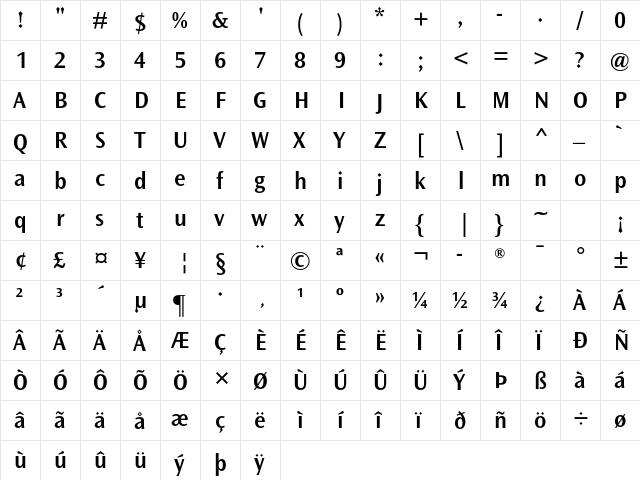
Ocean Sans Std Semibold
| Designer | Chong Wah |
Design Context for Ocean Sans Std Typeface
Ocean Sans Std is a composed and adaptable typeface that performs quietly and consistently across a wide range of design contexts. The heavy weight commands attention and anchors typographic hierarchies.